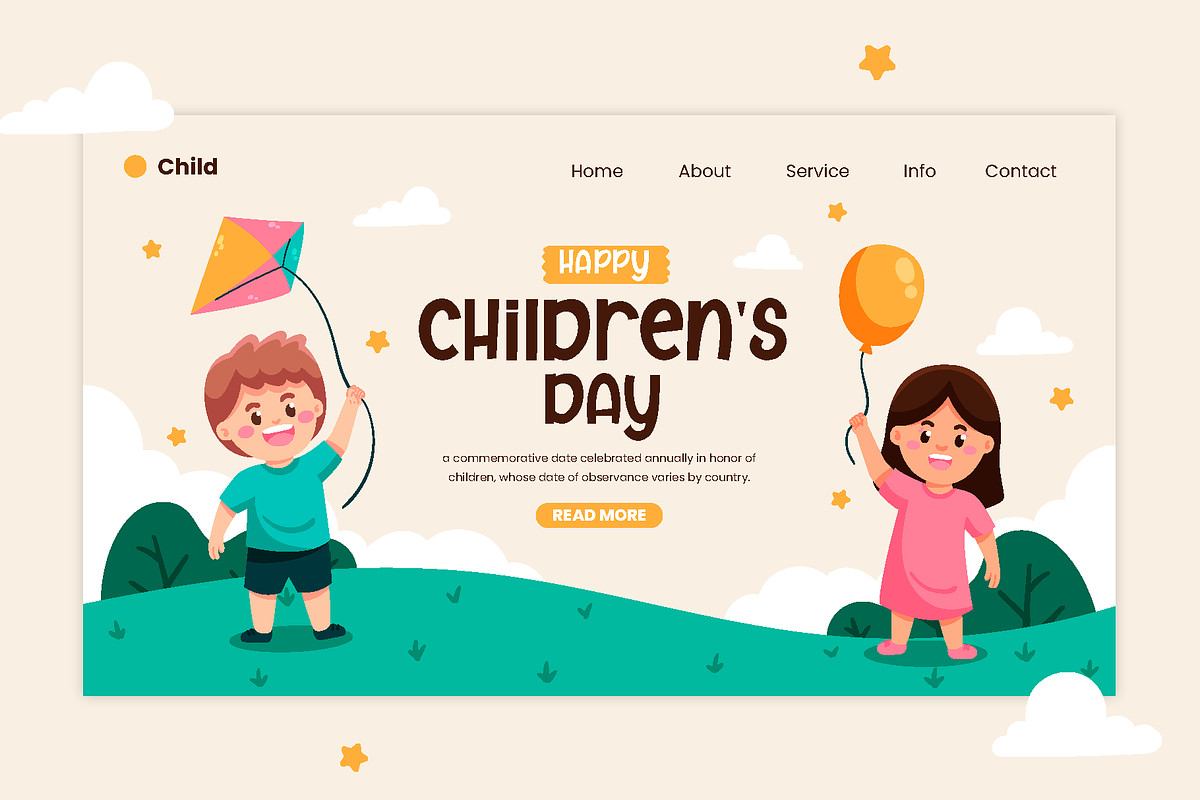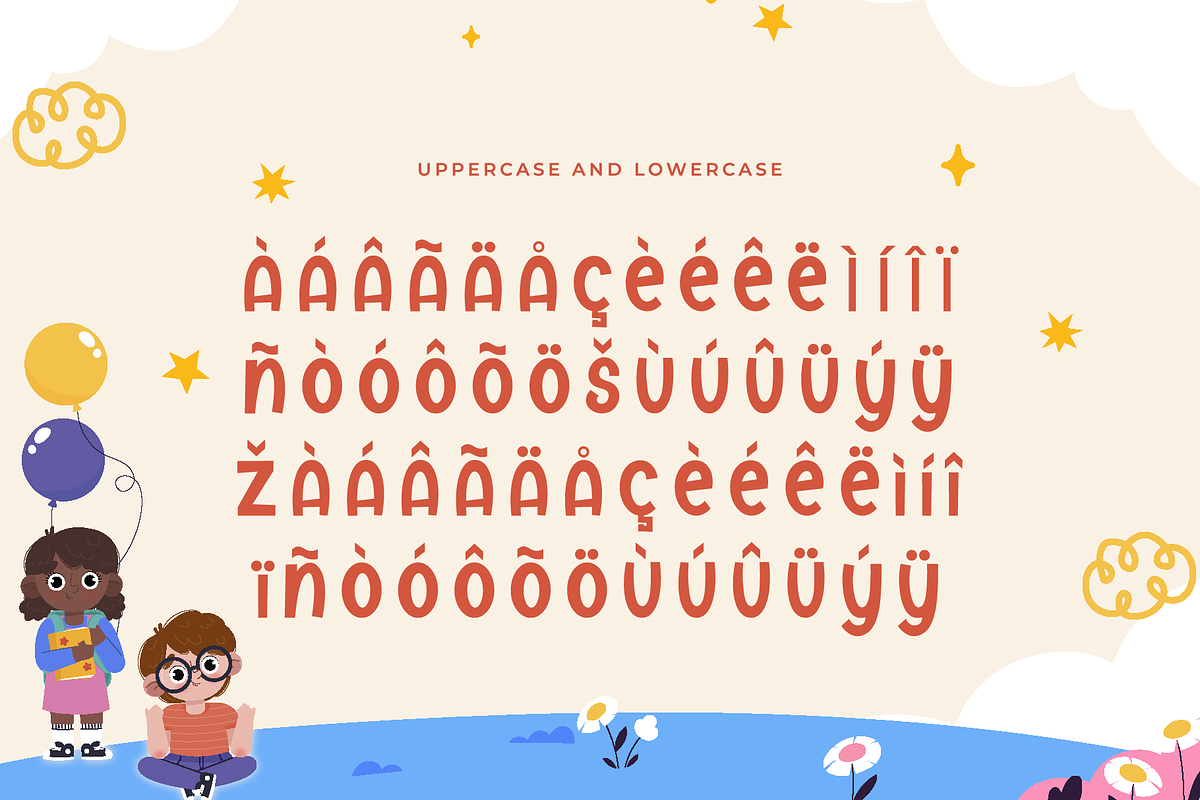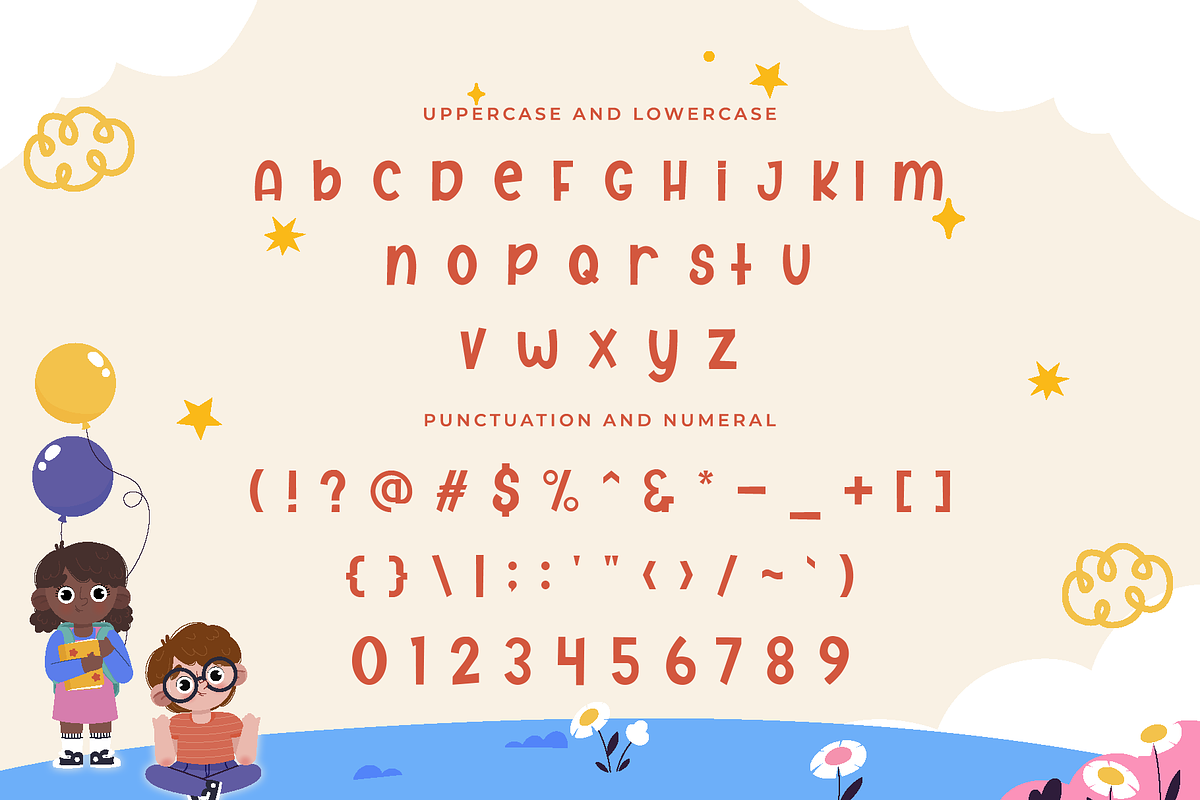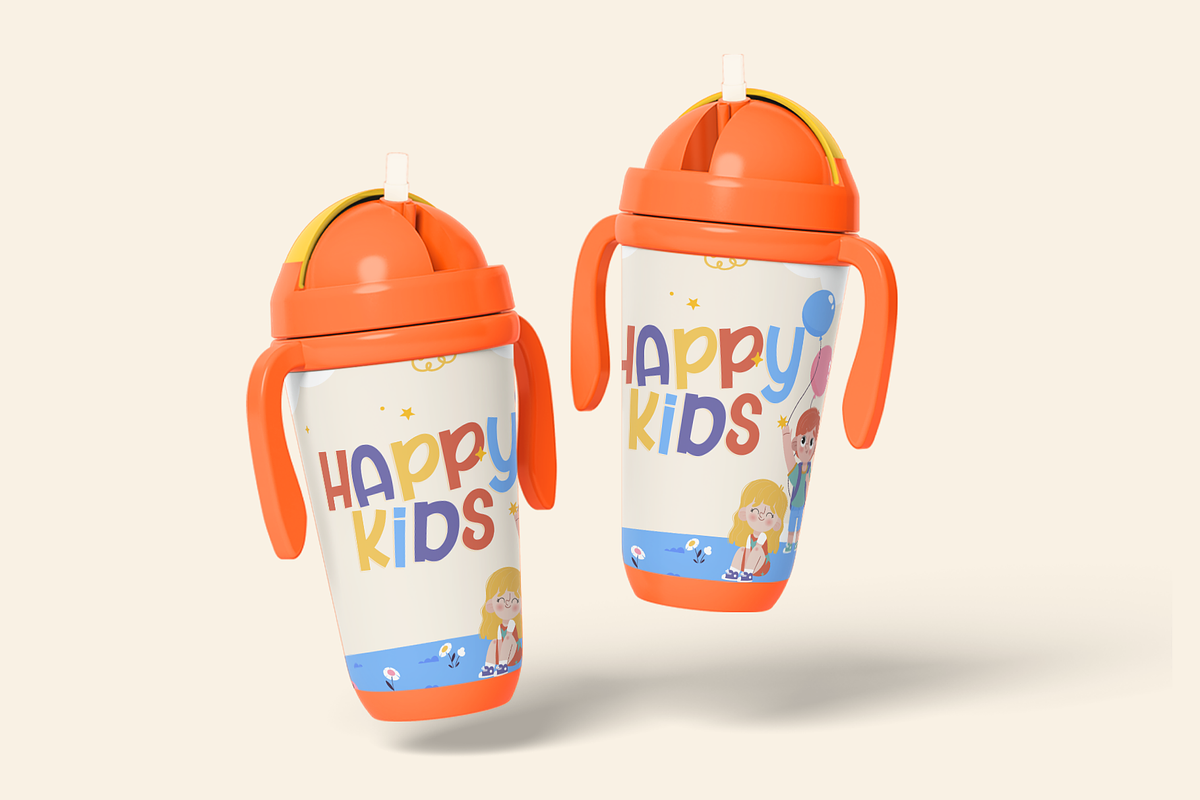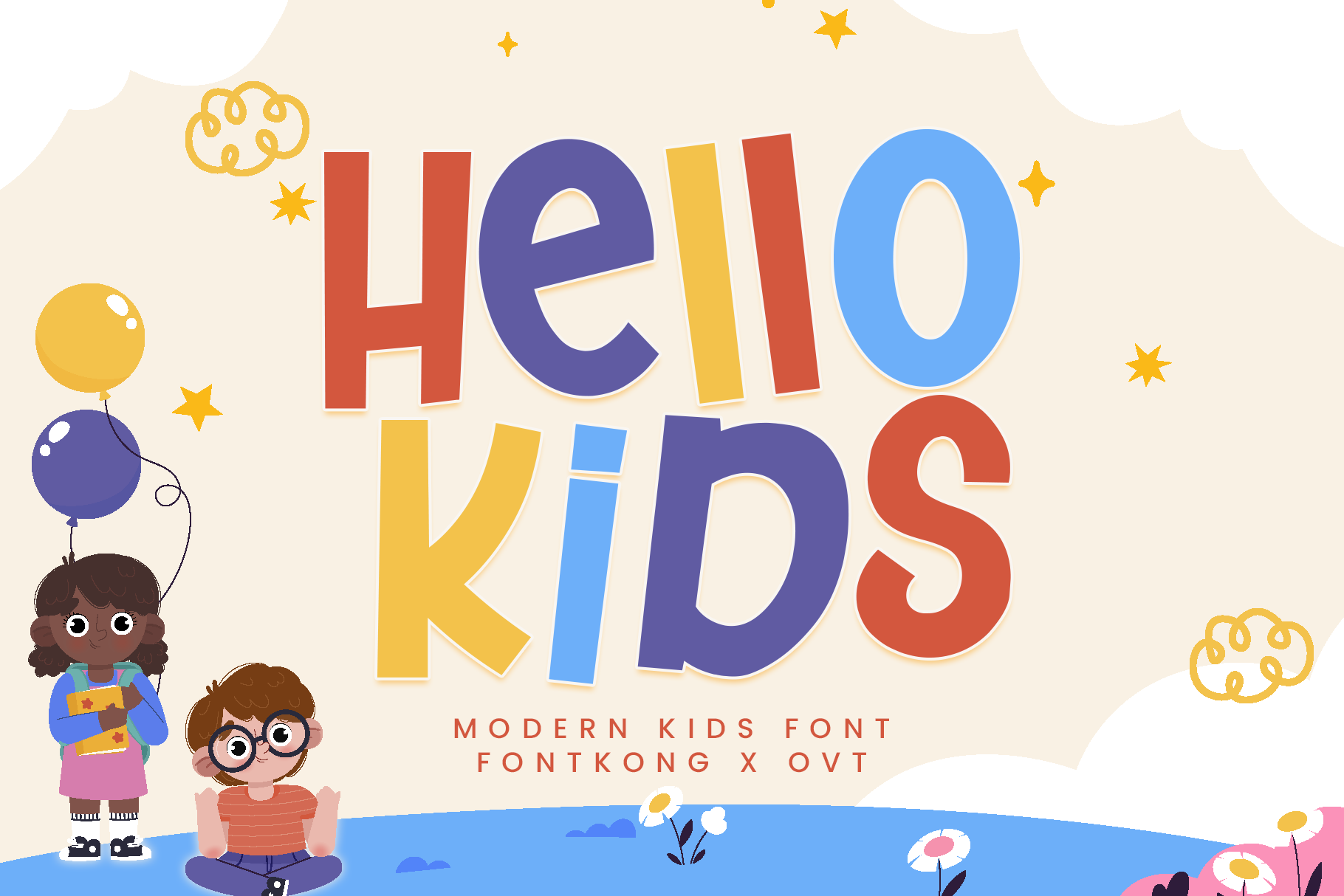
Hellokids - Modern Kids Font
Introducing "Hellokids," a modern kids font that infuses your design projects with joy and vibrancy. Perfect for graphic designers, educators, and creatives aiming to capture the essence of childhood fun, Hellokids offers a fresh and lively aesthetic ideal for any kid-focused design.
Ideal for children's books, posters, educational materials, birthday invitations, toy packaging, and logos, Hellokids features playful and rounded characters that evoke a sense of innocence and delight. Each letter is meticulously crafted to ensure readability while adding a touch of whimsy, making your designs captivating and engaging.
The "Hellokids" font includes a complete set of uppercase and lowercase letters, numbers, punctuation marks, and special characters. This comprehensive set allows for seamless integration into various design applications, from vibrant branding to colorful editorial layouts.
Add a splash of joy to your designs with Hellokids, the modern kids font that brings playful expressions to every stroke.